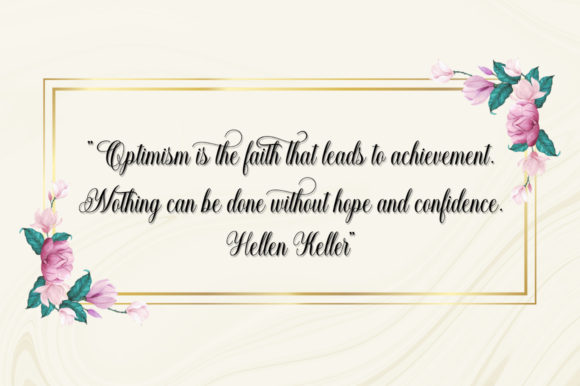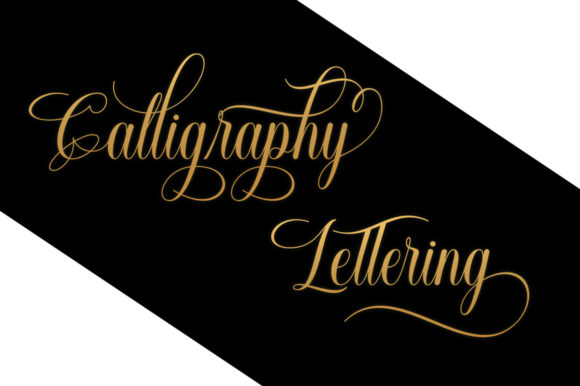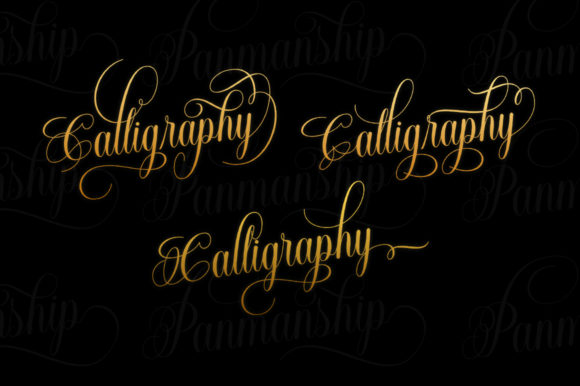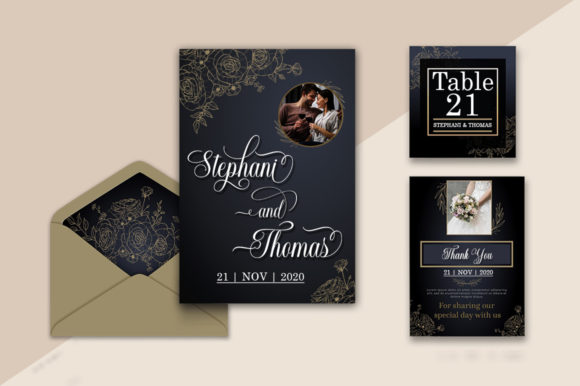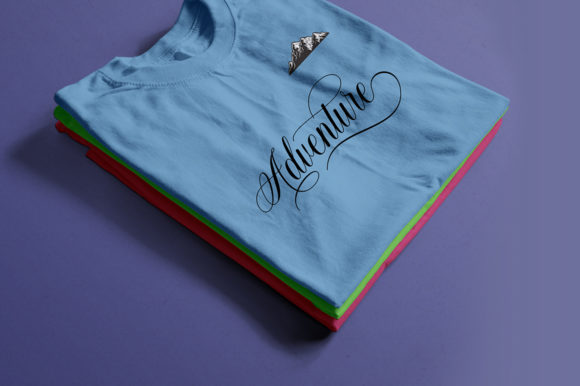
Discover the Elegance of Beatrice Font: Elevate Your Designs with a Touch of Sophistication
In the world of typography, few fonts manage to convey the essence of elegance and sophistication as effectively as the Beatrice Font. This beautiful, handwritten typeface has captured the hearts of designers and crafters alike, and for good reason. With its flowing lines, stunning glyphs, and versatile alternates, Beatrice Font is the perfect addition to any design project that calls for a touch of refinement and personal flair.
The Characteristics of Beatrice Font
Beatrice Font is characterized by its varying baseline, which gives it a delightfully organic and human feel. This feature, combined with its smooth lines and exquisite glyphs, makes it stand out from more conventional fonts. The font’s design is meticulously crafted to ensure that each letter and symbol contributes to a cohesive and aesthetically pleasing visual experience. Whether you’re working on wedding invitations, thank you cards, quotes, greeting cards, logos, or business cards, Beatrice Font brings a level of sophistication and charm that is hard to match.
One of the key advantages of Beatrice Font is its incredible versatility. It is suitable for a wide range of design projects, from the most formal and traditional to the more modern and whimsical. This versatility stems from its elegant yet approachable design, making it an excellent choice for various applications:
- Wedding Invitations: Add a touch of romance and sophistication to your wedding stationery.
- Thank You Cards: Express gratitude with style and elegance.
- Quotes and Greeting Cards: Bring inspiration and joy to your readers with beautifully typeset messages.
- Logos and Business Cards: Elevate your brand’s visual identity with a distinctive and memorable typeface.
Why Designers and Crafters Love Beatrice Font
Designers and crafters appreciate Beatrice Font for several reasons:
- Elegant Aesthetic: The font’s elegant design adds a touch of class to any project.
- Emotional Connection: The handwritten nature of Beatrice Font creates a warm and personal feel, helping to establish an emotional connection with the audience.
- Time-Saving: With its comprehensive set of glyphs and alternates, designers can create a wide variety of designs without the need for extensive custom typography work.
- Easy to Read: Despite its elegant and cursive nature, Beatrice Font remains highly legible, making it suitable for both headings and body text.
Tips for Using Beatrice Font Effectively
To make the most of Beatrice Font, consider the following tips:
- Mix and Match: Experiment with the font’s alternates and glyphs to add variety to your designs.
- Combine with Other Fonts: Pair Beatrice Font with complementary fonts to create visual interest and hierarchy.
- Adjust Line Spacing: Play with line spacing to enhance readability and achieve the desired flow.
- Use for Headlines and Accents: While beautiful for body text, Beatrice Font truly shines when used for headlines, quotes, and accent text.
Beatrice Font is a stunning addition to any designer’s toolkit. Its elegant and flowing design, combined with its versatility and wide range of applications, makes it an ideal choice for projects that demand a touch of sophistication and personal flair. Whether you’re a professional designer or a crafting enthusiast, Beatrice Font is sure to inspire your creativity and elevate your designs to new heights of elegance and refinement.